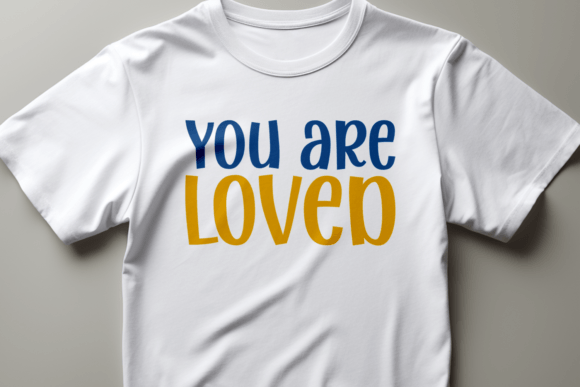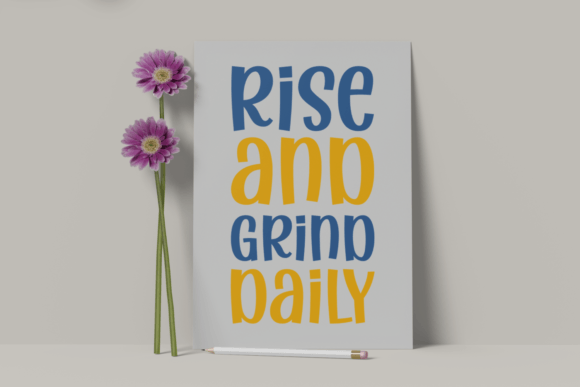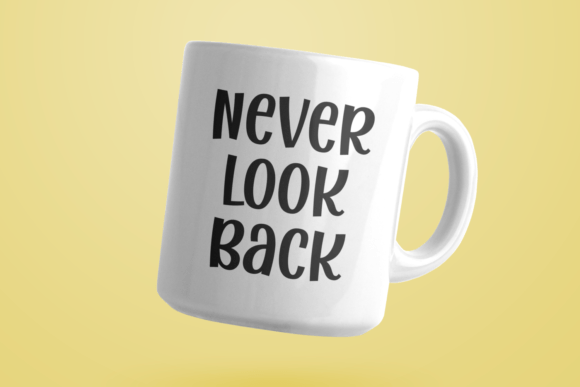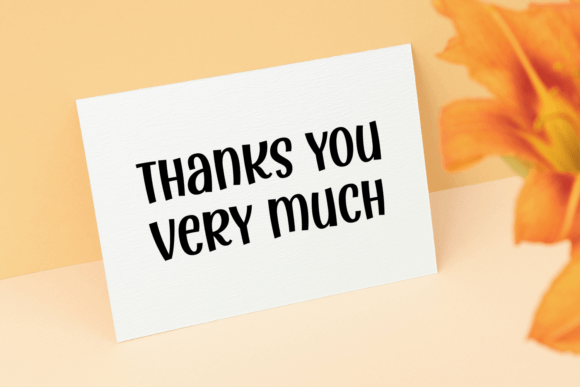
Introduction to Save Money Font
Have you ever been stuck on a creative project, searching for that one elusive font to elevate your design from ordinary to extraordinary? You’ve spent hours browsing through endless options, only to end up with a generic look that fails to impress. That’s where the Save Money Font comes in – a game-changing design resource that’s about to revolutionize the way you approach typography.
What sets Save Money Font apart from the rest is its unique blend of contemporary style and whimsical charm. This high-quality font is not only free to download but also boasts a transparent background, making it the perfect addition to any creative project. Whether you’re a seasoned designer or a budding artist, the Save Money Font is an invaluable tool that’s sure to take your work to the next level.
Key Features of Save Money Font
- High-quality design, ideal for use in graphic design, web design, and other visual projects.
- Features a transparent background, allowing for easy layering and customization in your design.
- Perfect as a design resource for creatives looking to add a touch of sophistication and elegance to their work.
Honest Review: Save Money Font
I recently came across the Save Money Font, a free download designed to help make a statement in creative projects. At first glance, I was drawn in by the font’s unique style and high quality design.
- What works well: ✨ The Save Money Font has a clear and transparent background, making it easy to pair with other design elements. It’s also great for use in financial or business-related projects where the theme is prominent.
- What works well: ✨ The font’s design is bold and attention-grabbing, perfect for headings or titles in a design project.
However, I did notice a few limitations: ⚠️ The font may not be suitable for projects requiring a more subtle or minimalist approach. Additionally, the design may be a bit too over-the-top for certain applications.
Overall, I think the Save Money Font is a great addition to any designer’s toolkit. While it may have some limitations, its unique style and high quality design make it a valuable resource for creative projects. Whether you’re working on a financial or business-related project, or simply looking for a bold and attention-grabbing font, the Save Money Font is definitely worth checking out.
Use the Save Money Font in conjunction with other design elements, such as images and graphics, to create a cohesive and visually appealing design. Experiment with different font sizes and styles to add emphasis to your text.
The Save Money Font is commonly used in marketing materials, such as brochures and flyers, as well as in social media graphics and presentations. Its high-quality design and transparent background make it perfect for a variety of creative projects.